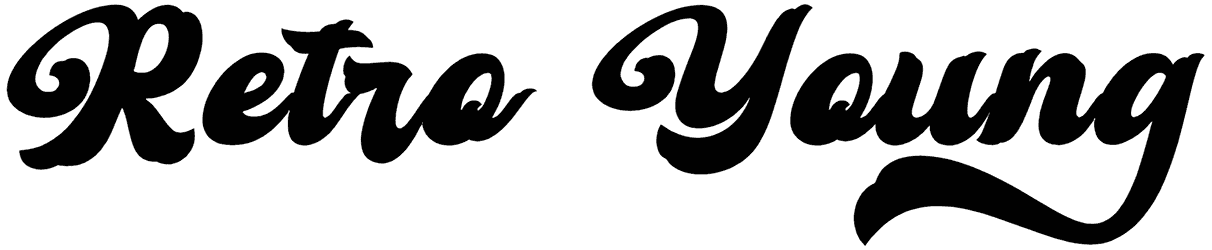
Retro Young Font
Retro Young is a very unique script font that was born from the union between bold letters, hand gestures, broken handwriting, and urban cultures.
This old school font is suitable for designers who want to attract viewers without much effort and create a design that stands out compared to the competition. The natural style of this surf font has made it a tool for gaining confidence in packaging, posters, books, and albums.